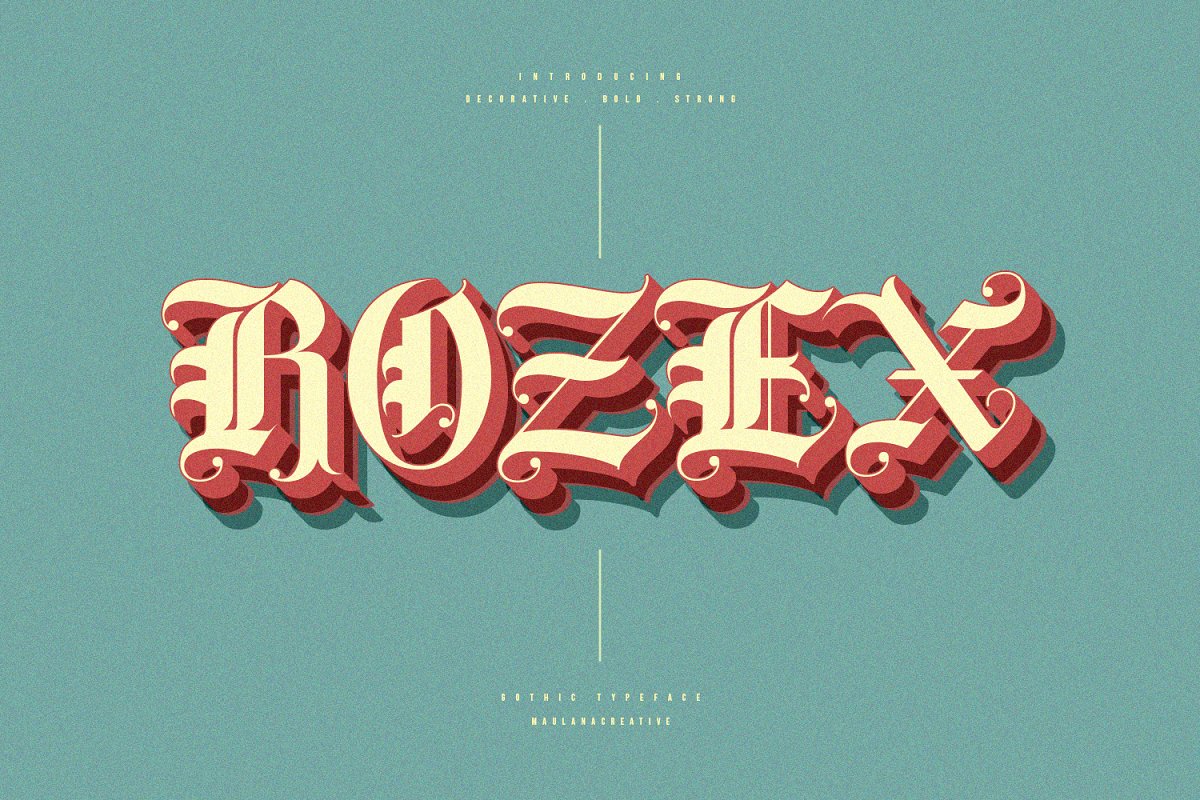
Introducing Rozex Font. Are you looking for a bold hand lettering decorative font that has a medieval gothic feeling? We can help! Try to download our Rozex Font.
Suitable to use for any occasion such as book, logo, print, game, event, music, invitation and others 🙂